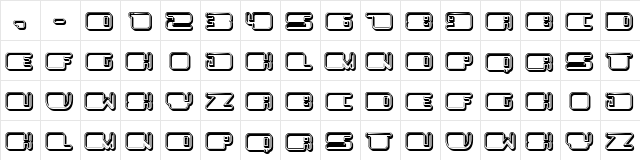
Patriotic Hollow Regular
Design Context for Patriotic Hollow Typeface
Patriotic Hollow is a composed and adaptable typeface that performs quietly and consistently across a wide range of design contexts.